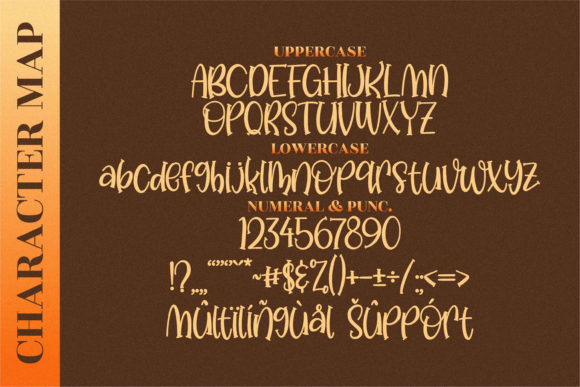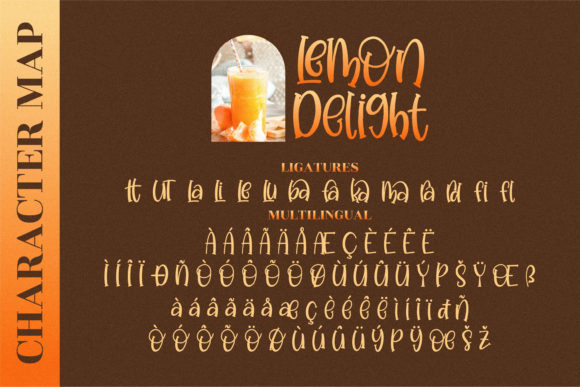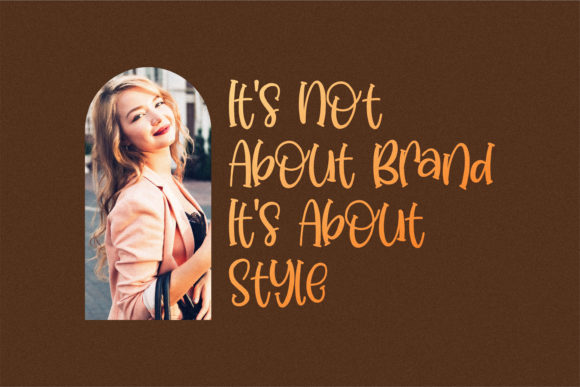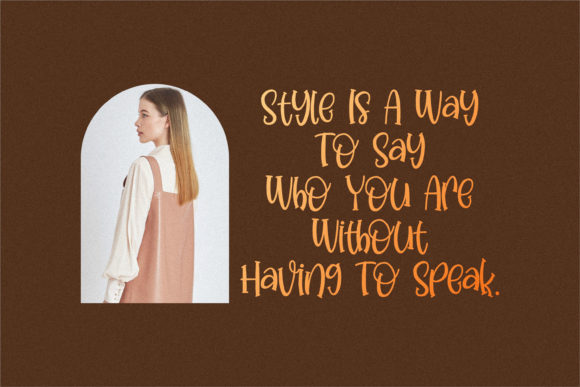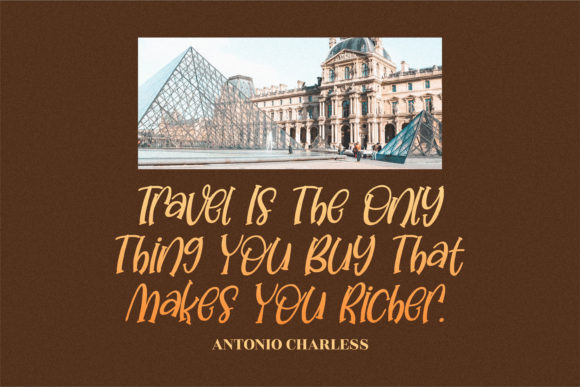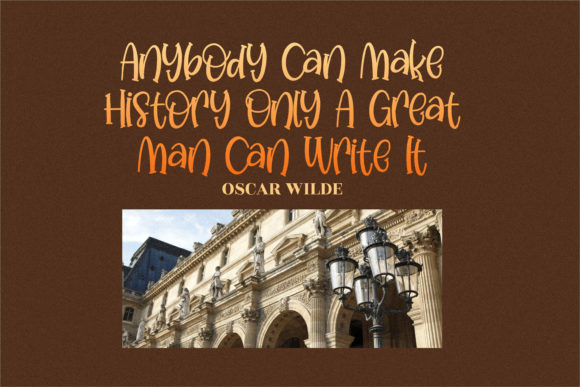
Introduction to Lemon Delight Font
Have you ever stared at a blank canvas, feeling the creative juices flowing, but struggling to find the perfect font to bring your vision to life? That’s exactly what happened to me when I first laid eyes on the Lemon Delight Font. Its quirky, handwritten charm immediately caught my attention, and I knew I had to learn more about this free download.
As a designer, you understand the importance of having a versatile design resource that can elevate your creative project. The Lemon Delight Font is that and more – a high-quality, natural font that adds a friendly touch to any design. With its transparent background, it’s perfect for overlaying on images or using as a standalone element. Whether you’re working on a blog post, social media graphics, or a marketing campaign, this font is sure to be a valuable addition to your design arsenal.
Key Features of Lemon Delight Font
- High-quality design with a transparent background, perfect for creative projects and design resources.
- Resolution: Optimized for high-resolution displays, ensuring crisp and clear text output.
- Unique characteristics: Whimsical and playful, with a bright and citrusy feel, perfect for adding a touch of personality to creative projects.
- Perfect for use in digital and print design, including logos, branding materials, and creative projects.
Honest Review: Lemon Delight Font
- The high-quality design and crisp lines make it perfect for both digital and print applications.
- The transparent background allows for easy layering and customization in design software.
- The font’s unique, playful style adds a touch of whimsy to any project.
- The font may not be suitable for formal or professional projects, due to its casual nature.
Overall, I’m impressed with the Lemon Delight Font’s versatility and potential for creative expression. It’s a great resource for designers looking for a fun and engaging font to add some personality to their work.
The Lemon Delight Font is perfect for creating eye-catching graphics and designs for social media, websites, and other digital platforms. It’s also great for adding a touch of elegance to your presentations and documents.
To get the most out of the Lemon Delight Font, be sure to use it in conjunction with a transparent background to create a clean and modern look. You can also experiment with different font sizes and styles to add visual interest to your designs.
Yes, the Lemon Delight Font has a transparent background, making it perfect for use in designs where a clear background is required. This feature allows for easy layering and composition in design projects. Simply ensure that your design software supports transparent backgrounds, and you’re good to go.